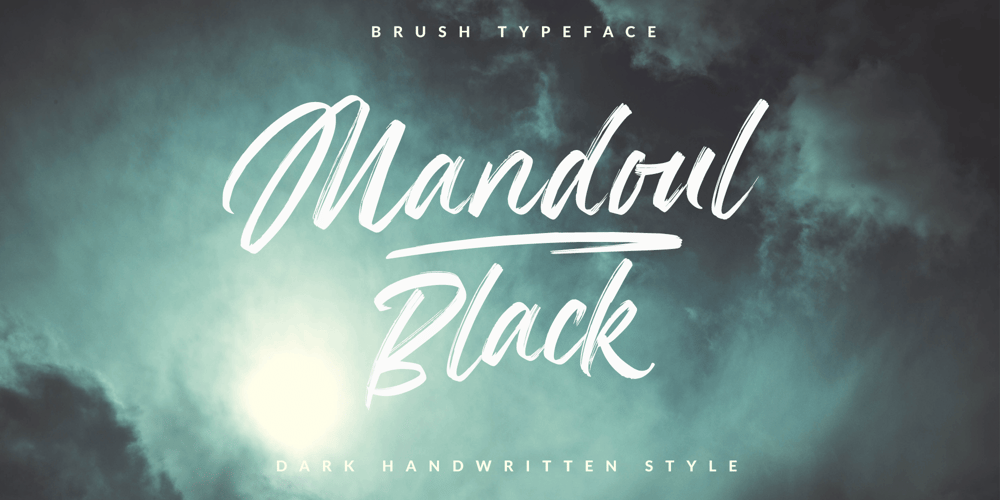
Mandoul Black Font Family was designed by Måns Grebäck and published by Mans Greback. Mandoul Black contains 2 styles and family package options. Mandoul Black is a cool, active calligraphy typeface bursting with energy. With extra attention to quick letterforms and sharp details, this brush typeface turns any graphic project into a strong and confident work. Its handwritten paintbrush strokes are created with real brush and paint, ensuring a genuine and truly artistic typographic design. It is provided as Regular and Italic. Use underscore _ anywhere in a word to create a swash. Example: Hand_scriptUse multiple underscores for different swashes. Example: Bea__utiful (Download required.)Mandoul is built with advanced OpenType functionality and has a guaranteed top-notch quality, containing stylistic and contextual alternates, ligatures and more features; all to give you full control and customizability. It has extensive lingual support, covering all Latin-based languages, from North Europe to South Africa, from America to South-East Asia. It contains all characters and symbols you’ll ever need, including all punctuation and numbers.